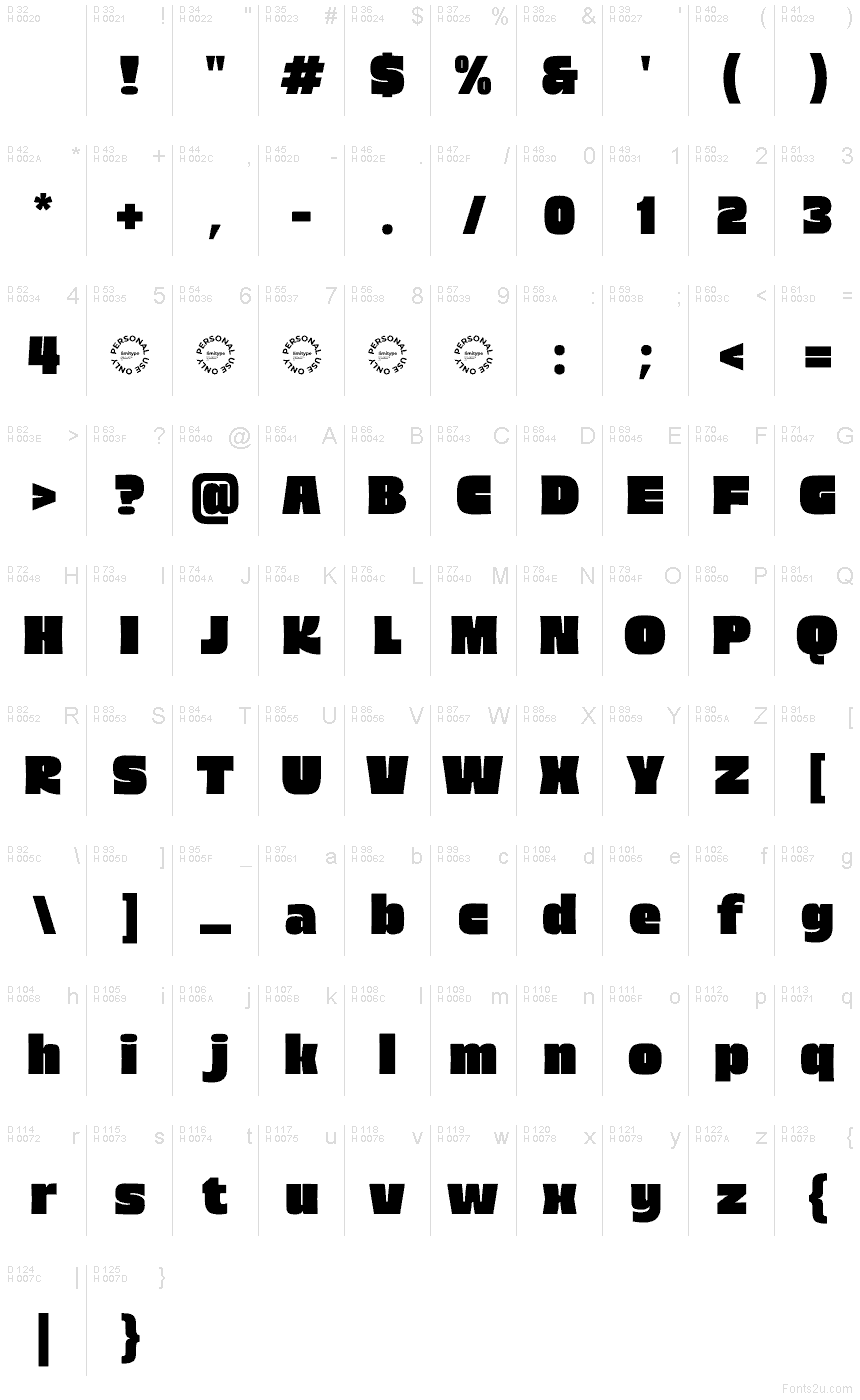
Boldet Demo
Boldet font by Limitype is a free ultra-bold sans serif display font. It stands out with thick, pillowy strokes and softly scooped terminals that feel almost embossed, like ink pressed deep into paper. Counters stay open and lively despite the heft, so words read cleanly even at a glance.
Using Boldet, headlines punch through clutter—great for posters, packaging, event graphics, sports branding, thumbnails, and bold signage. Its squishy mass gives a friendly, high-impact voice that’s hard to ignore, yet not shouty. For balance, pair this free font’s heavy forms with a light geometric sans for captions, or give it a touch of extra letterspacing when set very large.